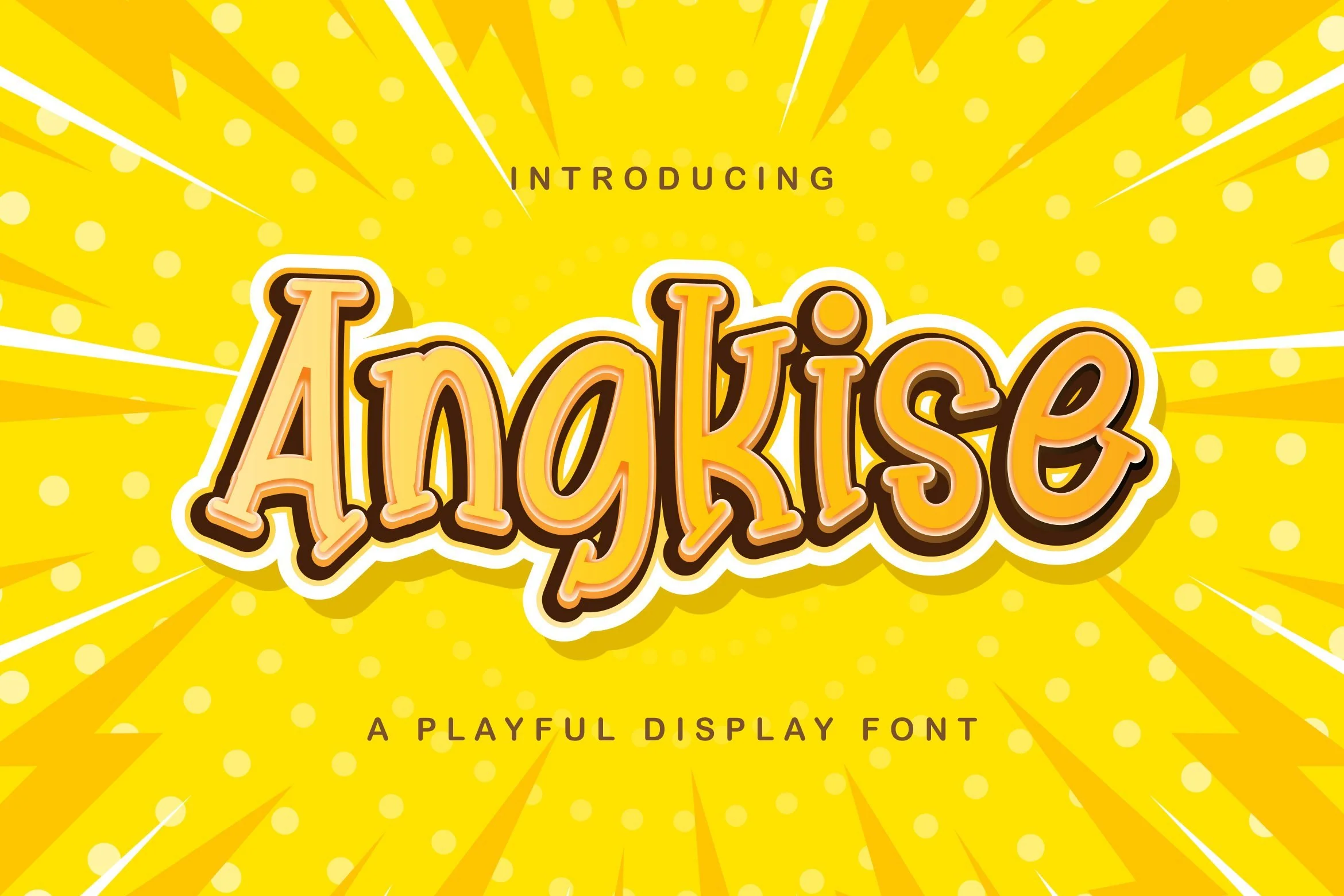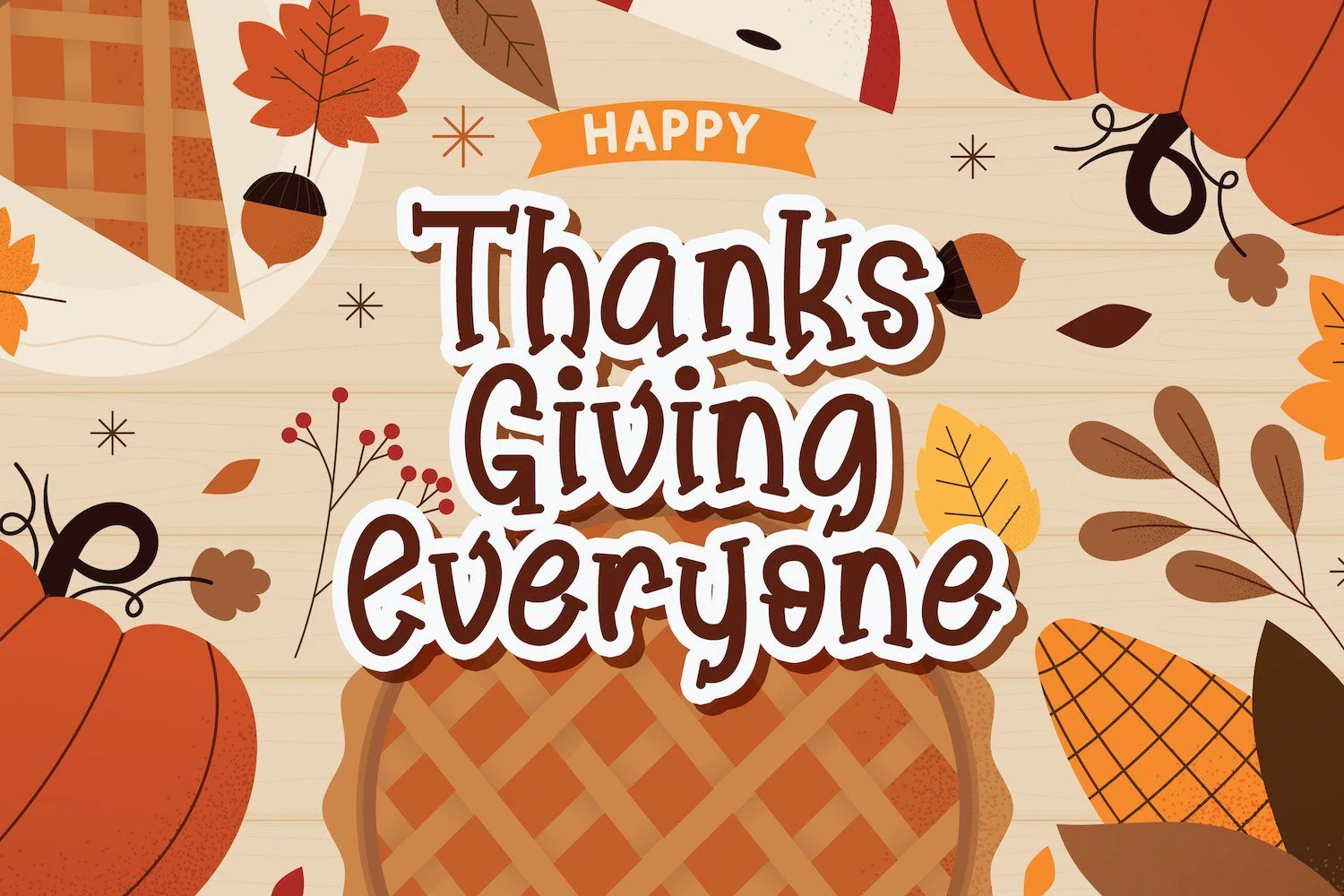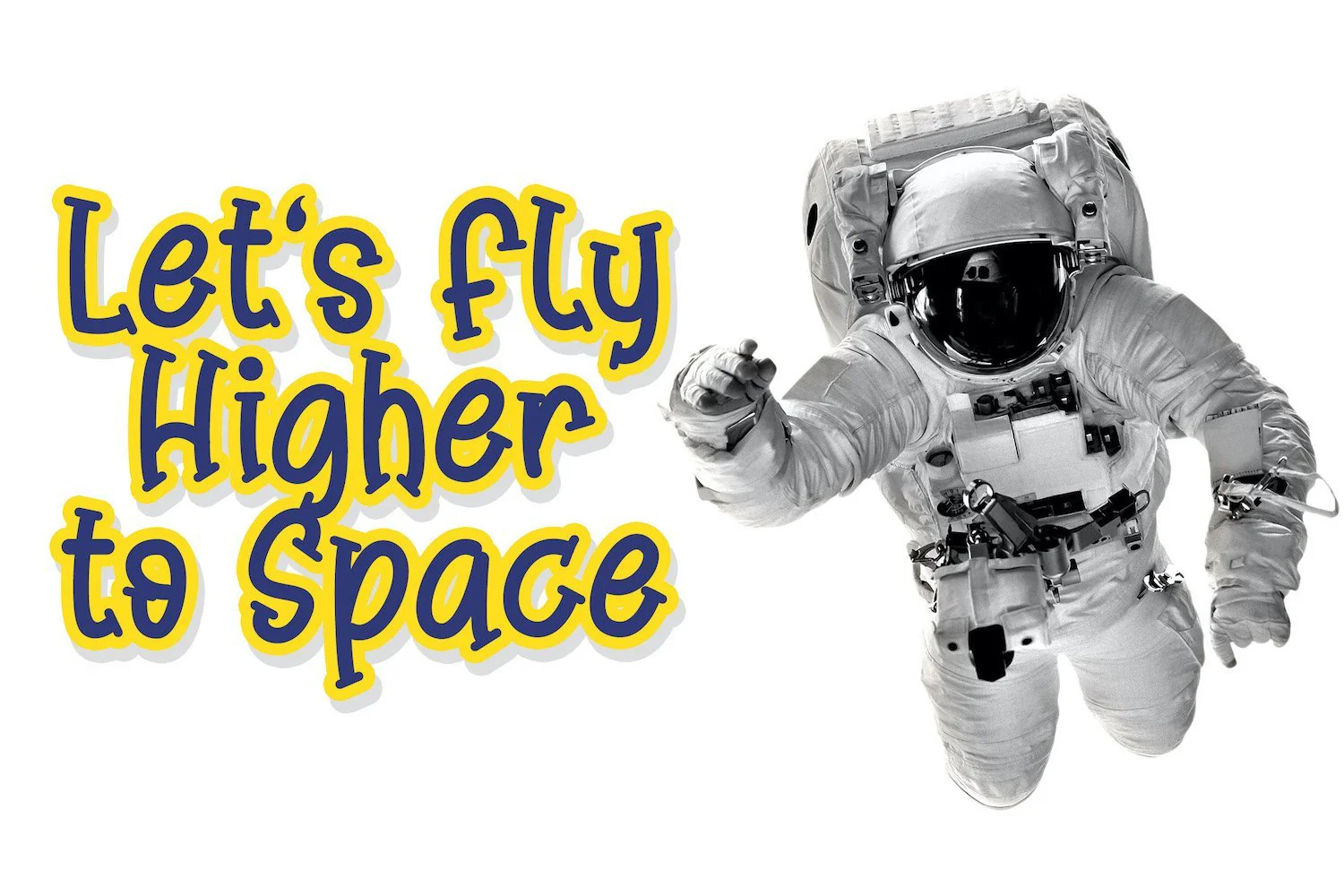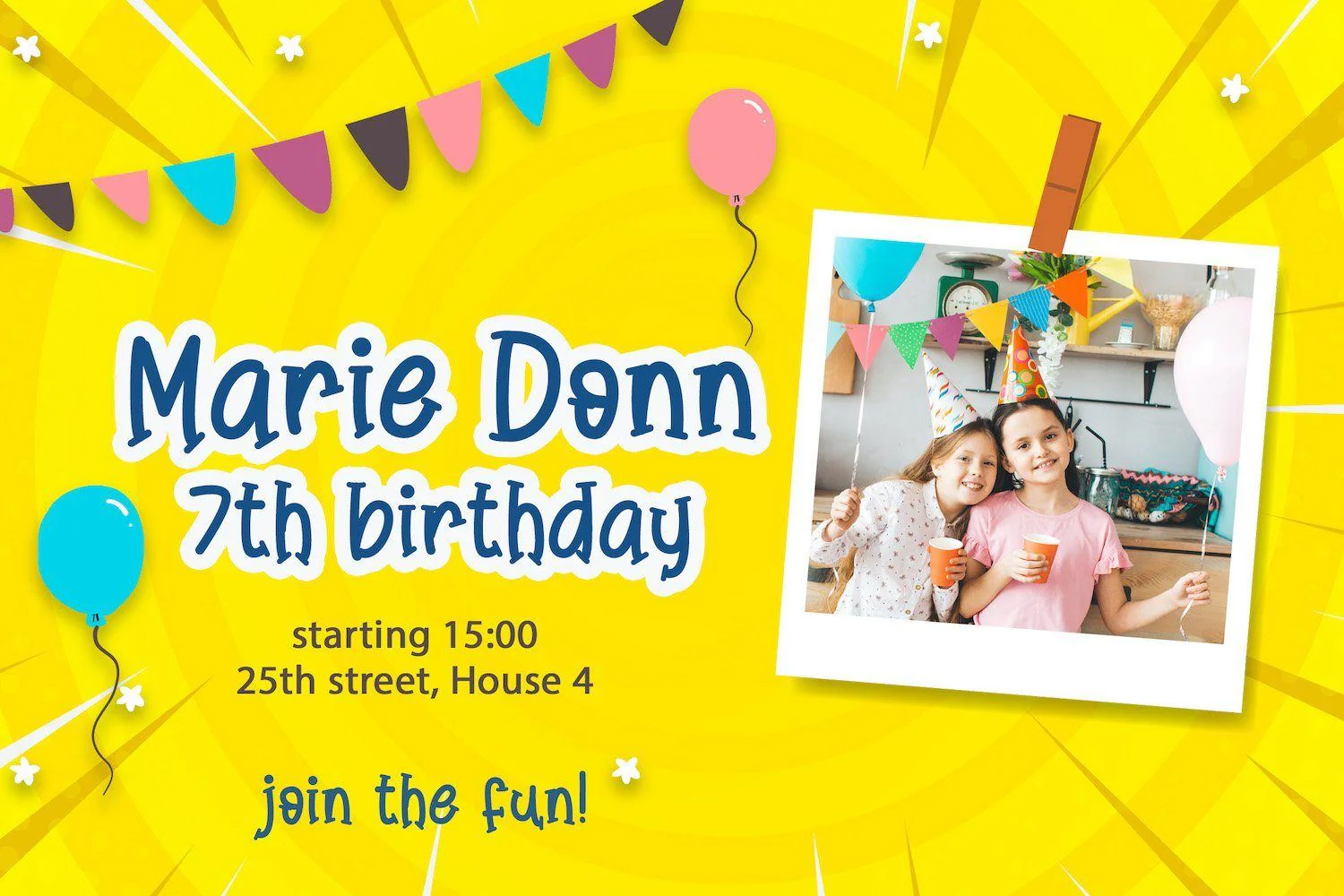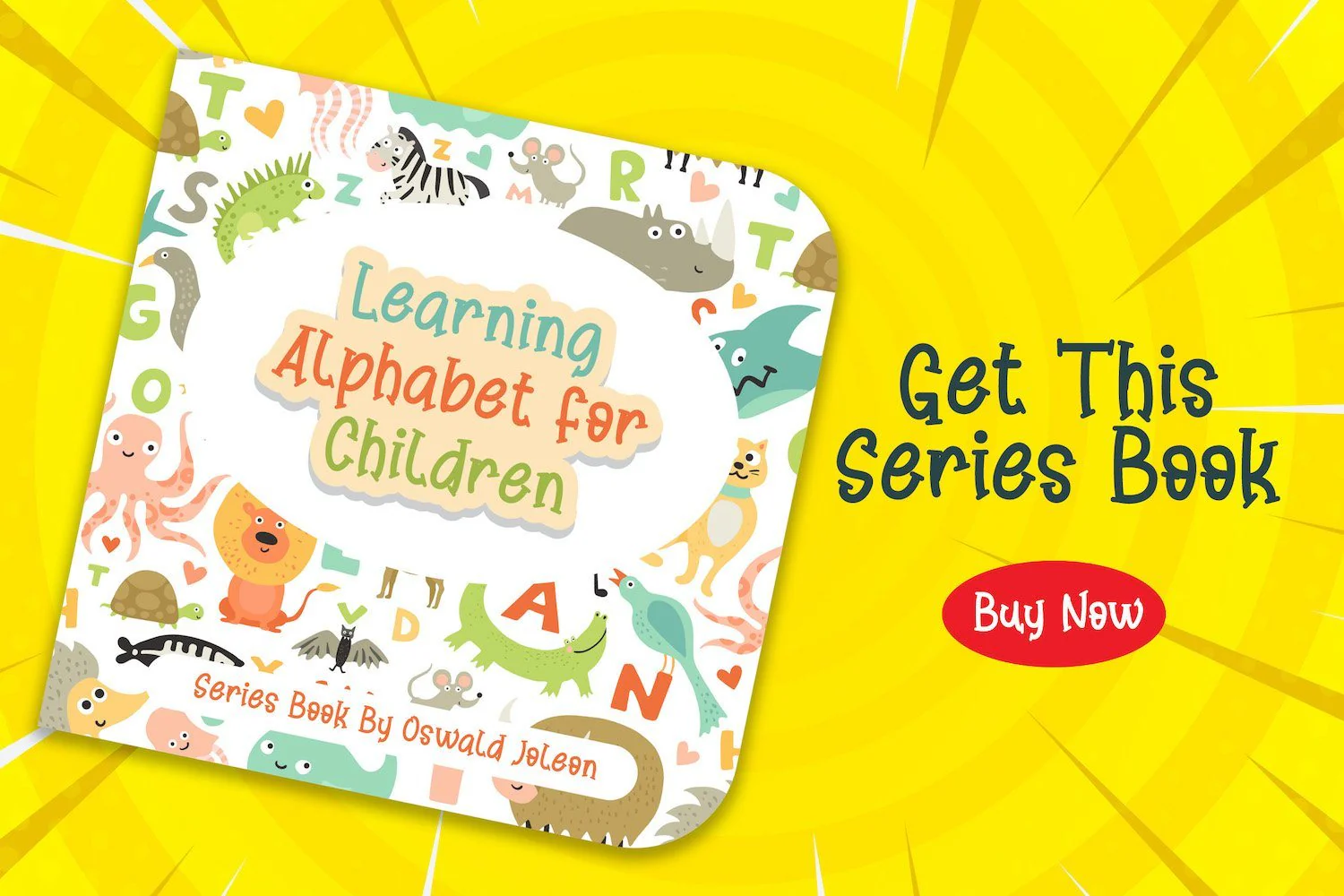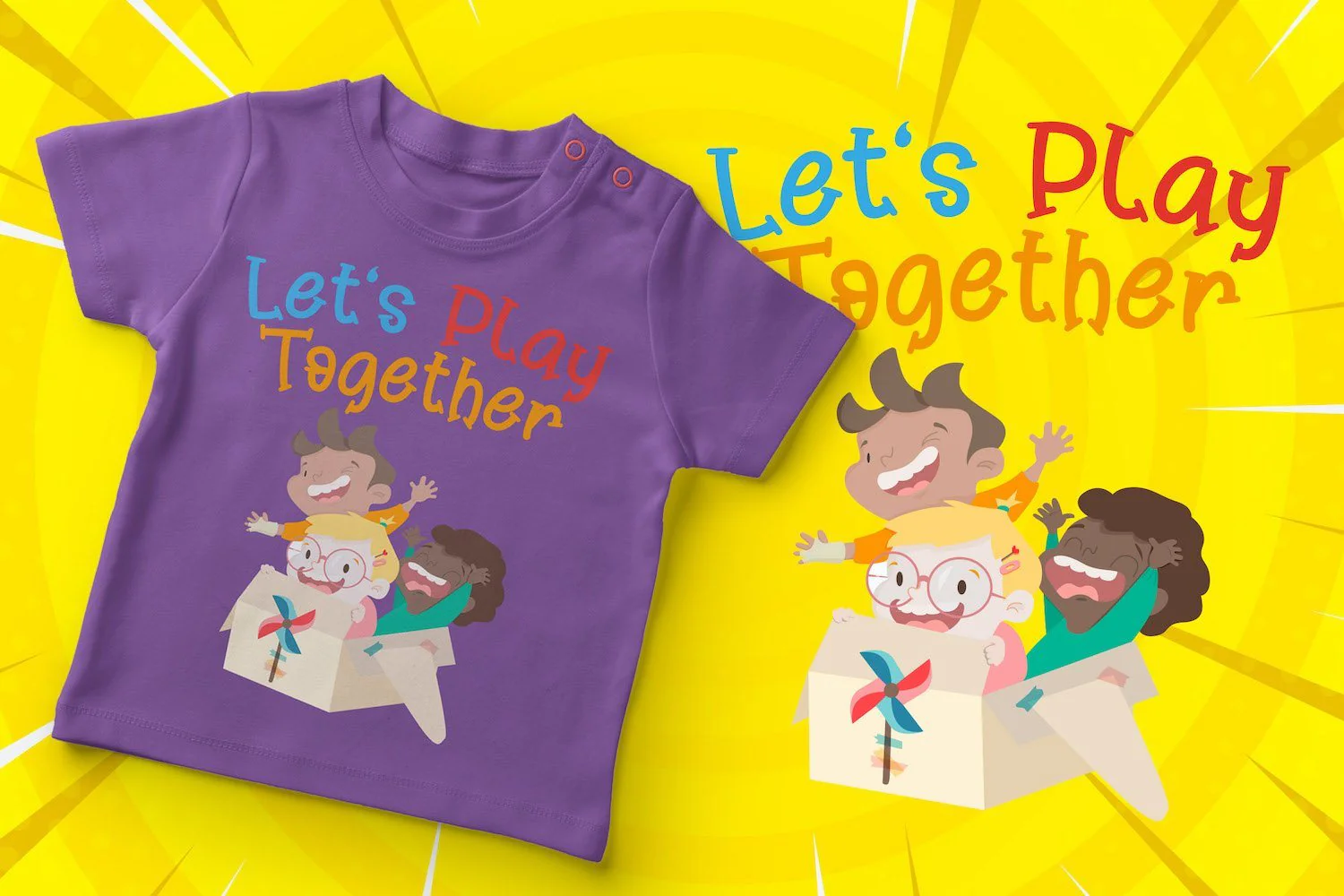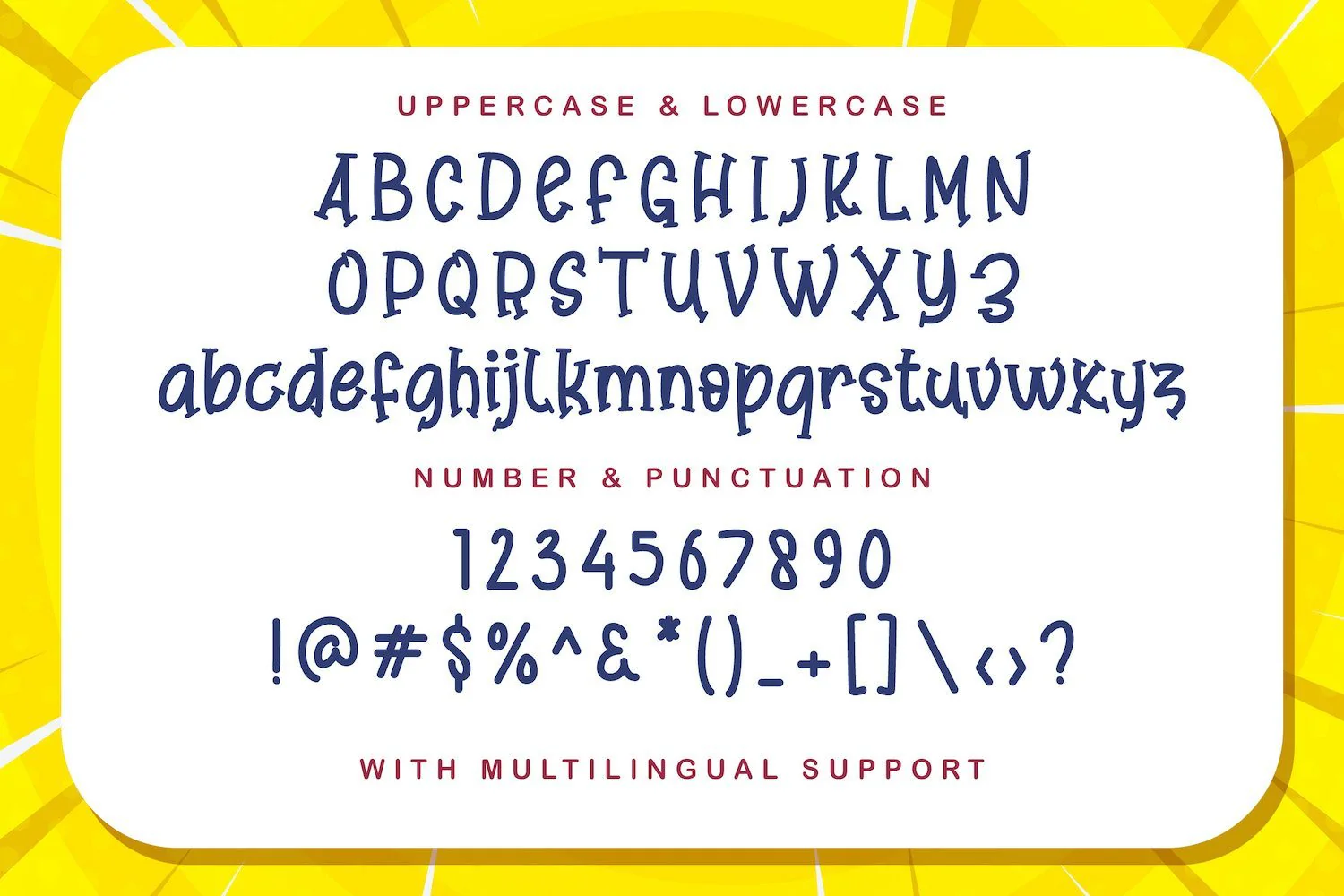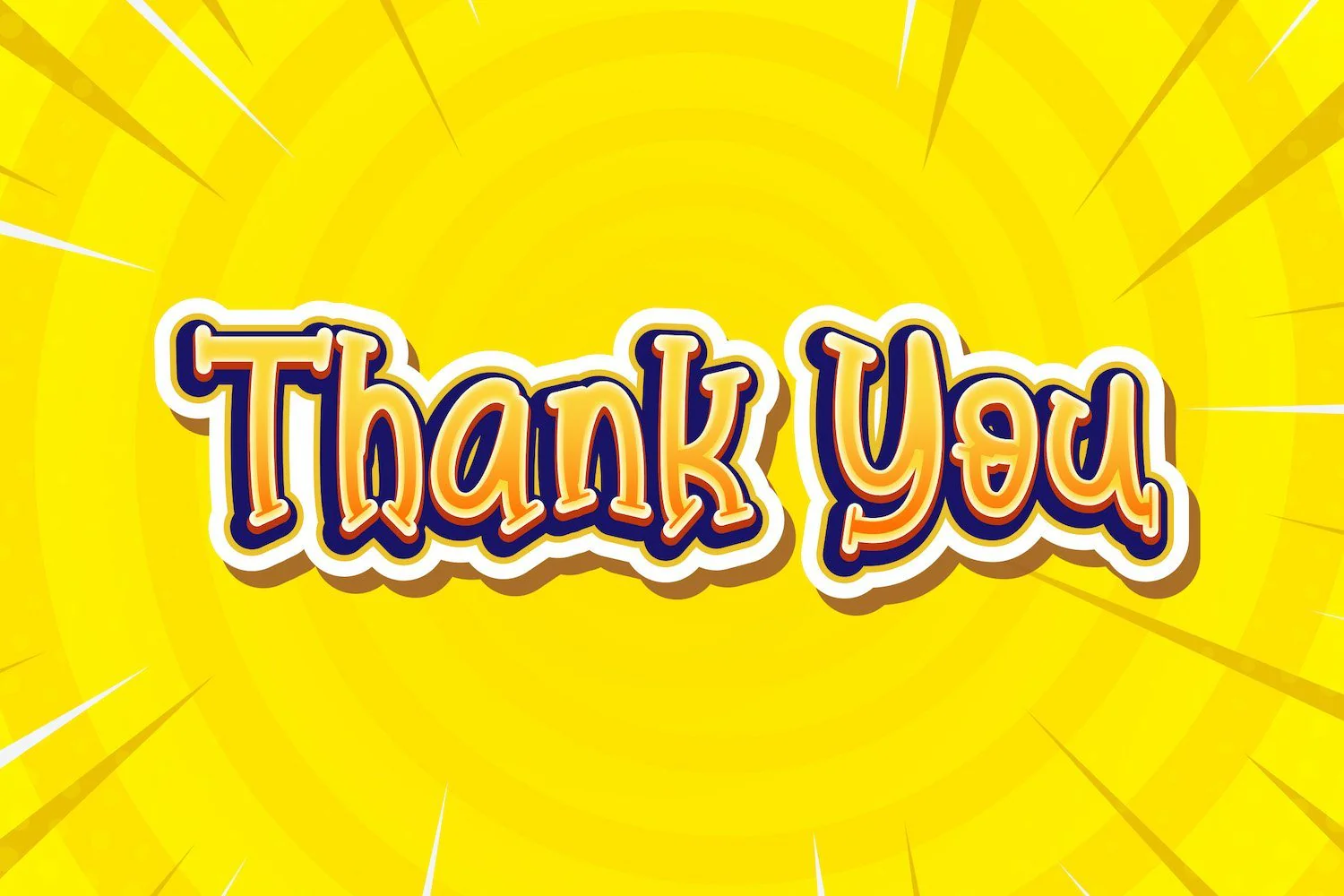
Angkise - Playful Display Font
Introducing Angkise - Playful Display Font
Angkise is a fun display font. Playful and fresh, this font will be a hit for each of your children or school projects!
Introducing Angkise - Playful Display Font
Angkise is a fun display font. Playful and fresh, this font will be a hit for each of your children or school projects!